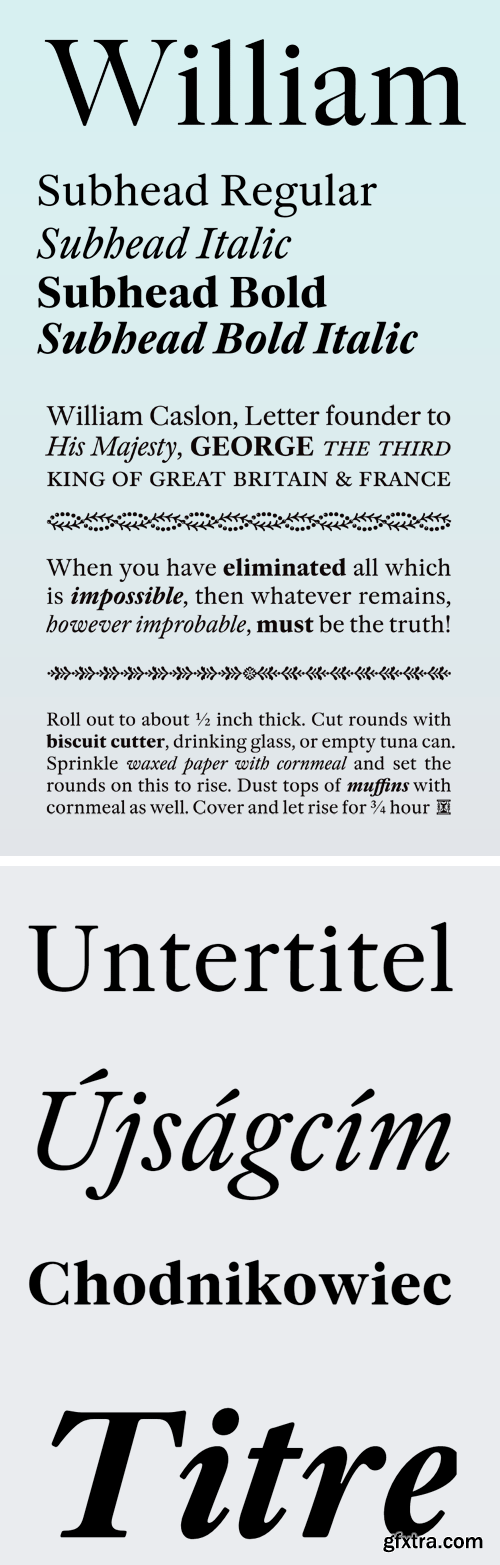
William Subhead Font Family
William Caslon (1692–1766) established the cornerstone of British type founding, ending reliance on the Dutch types which were commonly used in England up to that point (and which inspired his designs). Caslon achieved success both at home and abroad, and the American Declaration of Independence was printed in 1776 using Caslon type. Caslon typefaces set the aesthetic standard for book design, and by the 20th century, the name Caslon referred not only to a specific set of typefaces, but an entire brand.
Caslon’s work has a permanent place in the history of typography. William builds on his foundation and makes his type relevant for a new generation of designers. Just as Caslon cut many non-Latin types and ornaments, William focuses on his international typography, and Cyrillic and Greek versions will follow the current release.